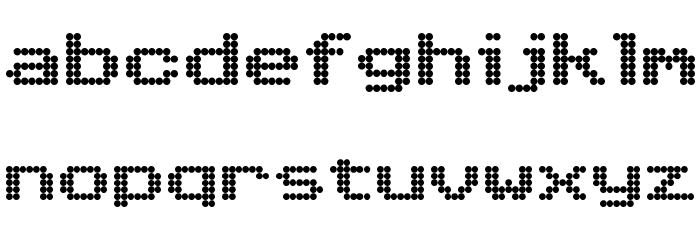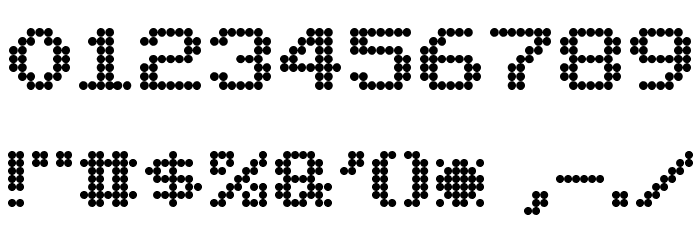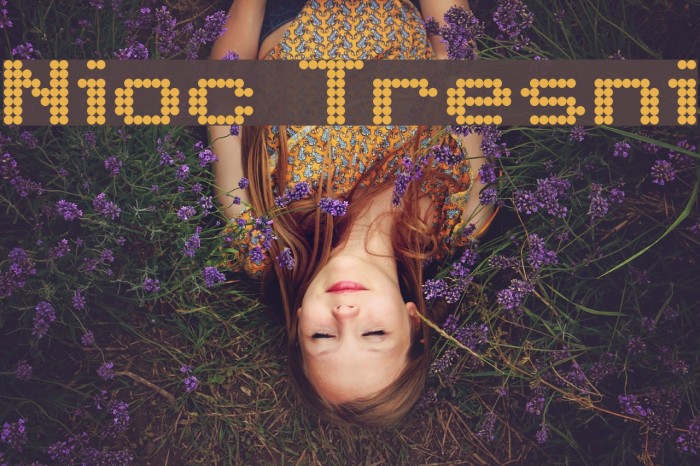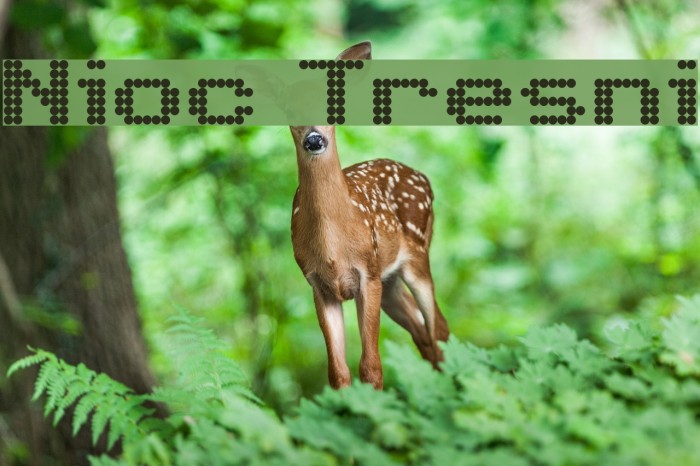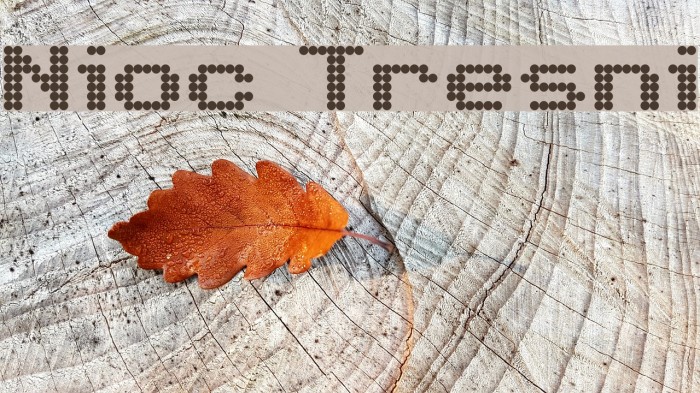
Nioc Tresni Font
This font features a unique dot matrix style, where each character is composed of small, evenly spaced dots. The design is reminiscent of retro digital displays, offering a playful yet structured appearance. The uppercase and lowercase letters maintain a consistent height and width, creating a uniform look. Numbers and special characters follow the same dot pattern, ensuring cohesion across all elements. This font's distinct style makes it stand out, ideal for projects that require a digital or vintage aesthetic.
A dot matrix style font with a retro digital display appearance.
- Font: Nioc Tresni
- Proposed Projects: Ideal for digital-themed designs, retro video games, tech-related branding, and creative posters.
- Overall Style: Vintage